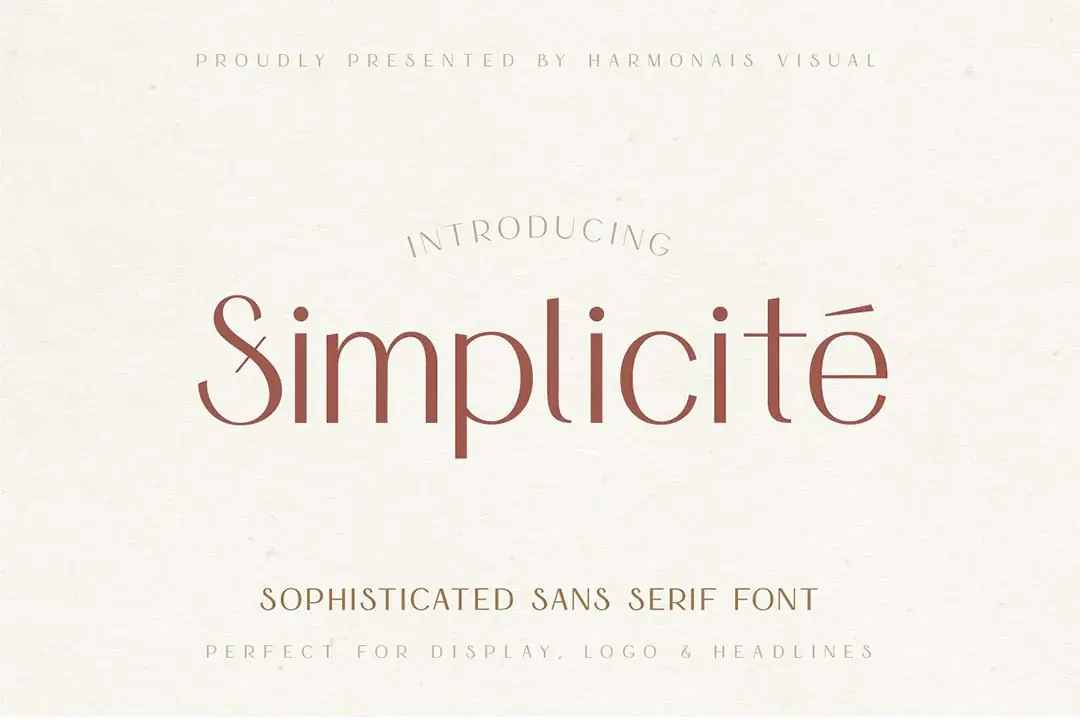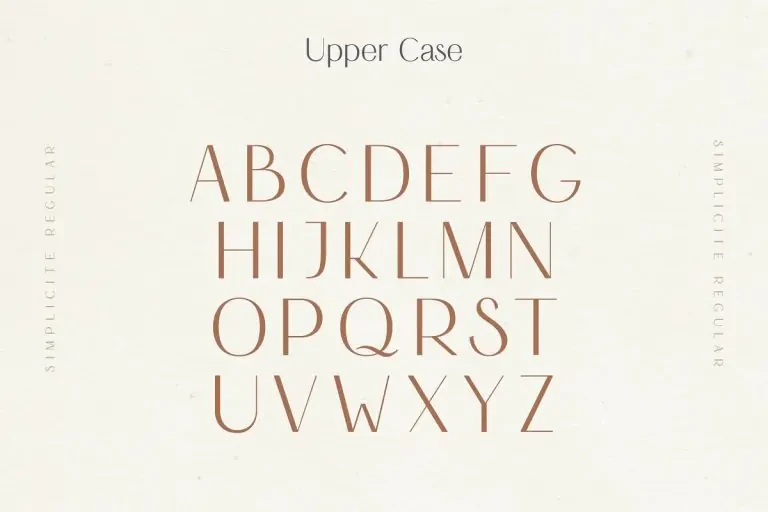
Simplicité Elegant Demo Font
Simplicité Elegant Free Font was designed by Harmonais Visual
Simplicité Elegant Free Font was designed by Harmonais Visual. A display typeface, with beautiful contrasts. You will be pleased to use the many options of alternates and ligatures, perfectly suitable for creating nice design such as logos, mash head or title